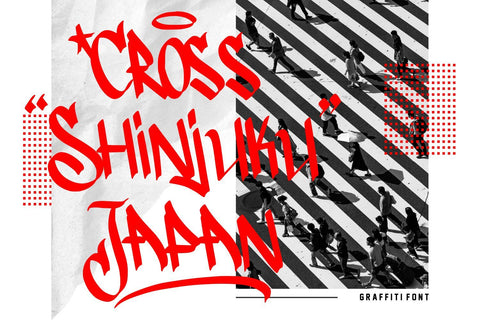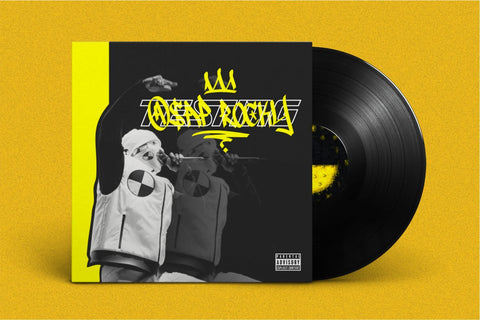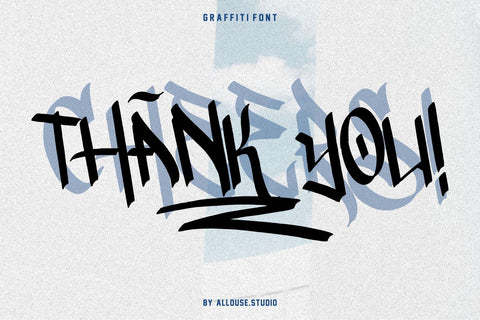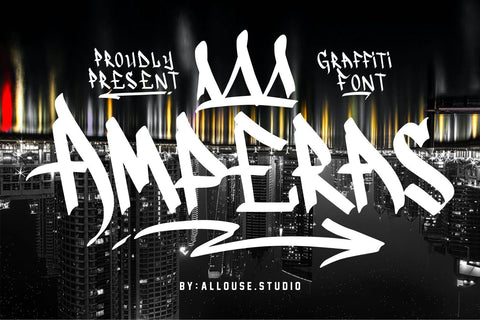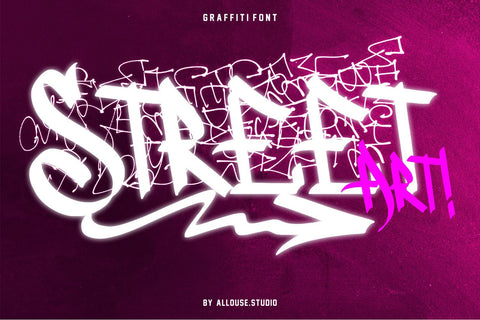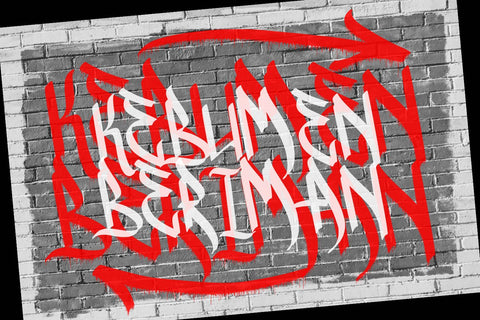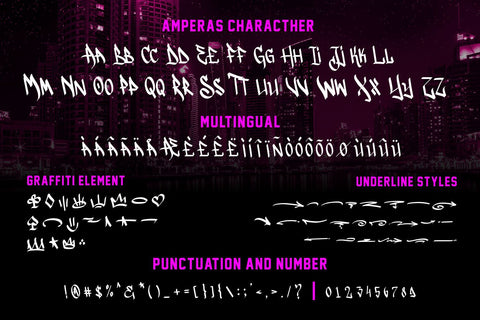
Amperas - Graffiti Font
Amperas is a Graffiti Font. Amperas is perfect for product packaging, branding project, megazine, social media, wedding, or just used to express words above the background.
Amperas also come with extras graffiti elements and underline style for your need to make them realistic. This font also come with multilingual support.